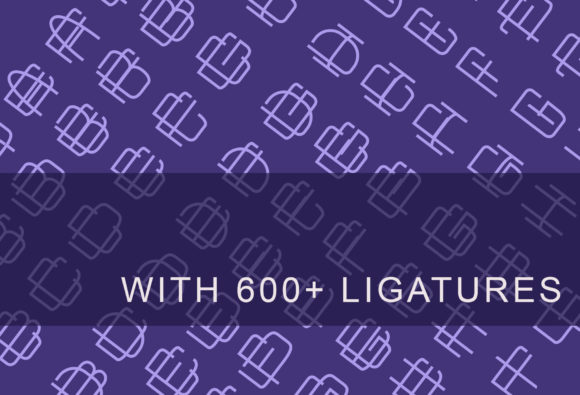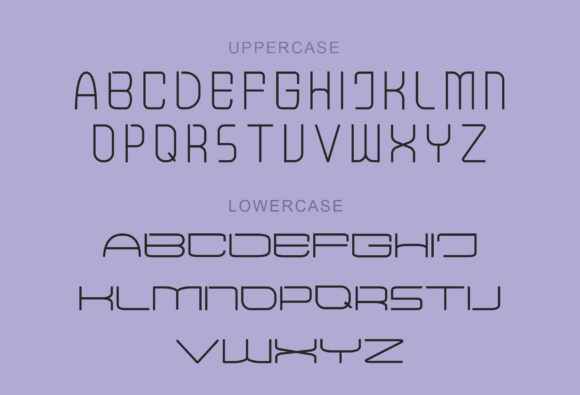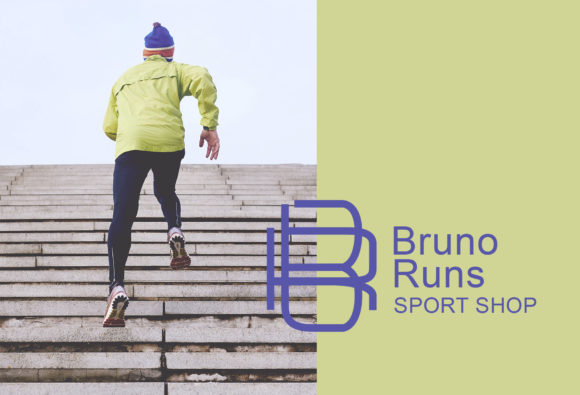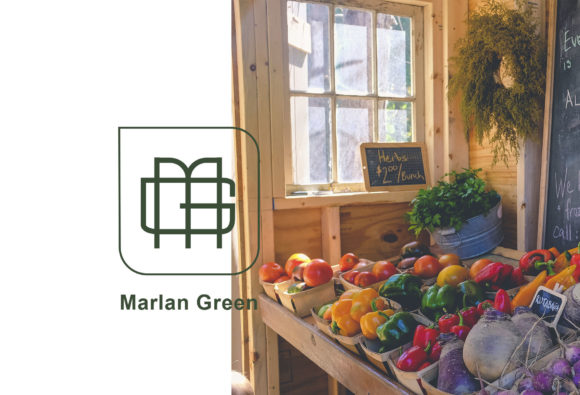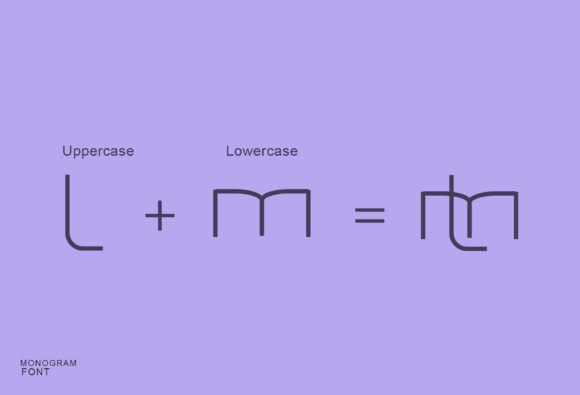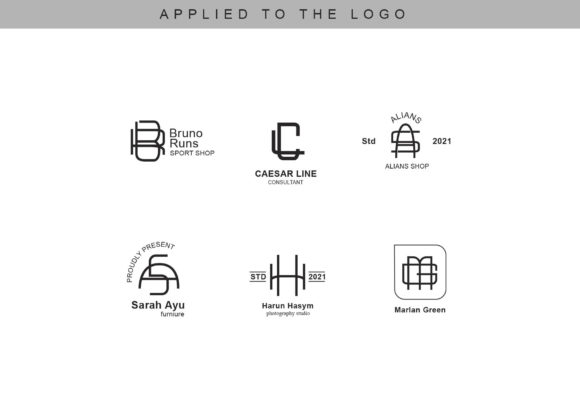
Introduction to Linesy Font
Linesy is a simple and neat sans serif font.
Its natural and unique style makes it incredibly fitting to a large pool of designs This font is PUA encoded which means you can access all of the glyphs and swashes with ease.